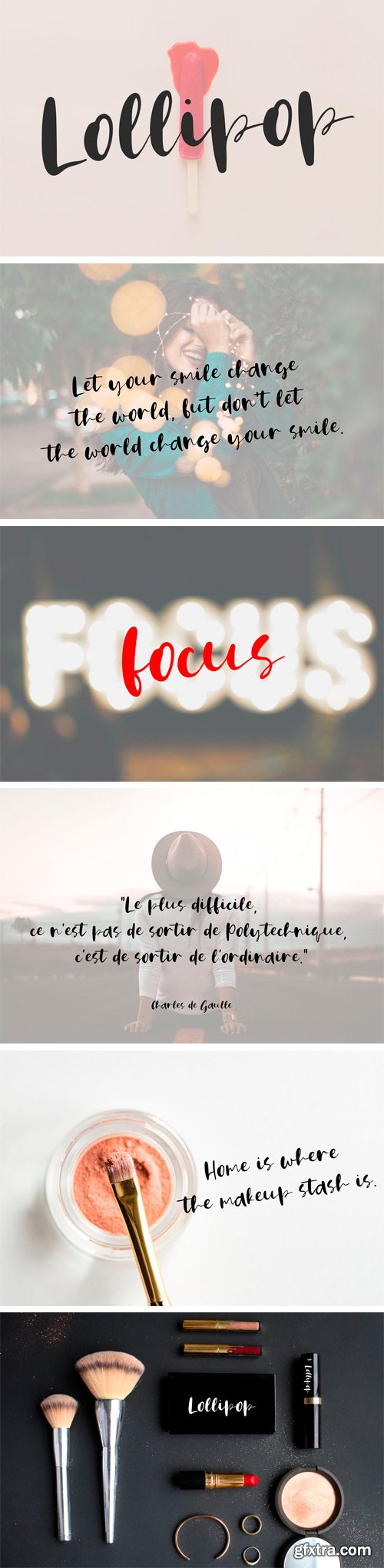
CM - Lollipop | 手写体字体 2896933
Every single letter has been creative carefully and Perfectly for every project. This font is a little romantic script designed for making your set of invitations, quotes, blog posts, and more completely beautiful.